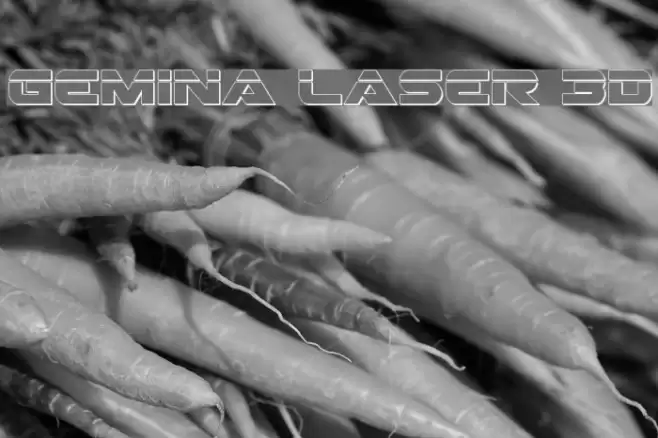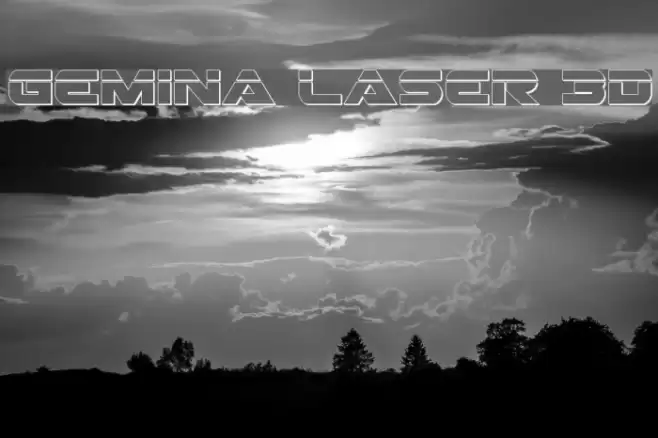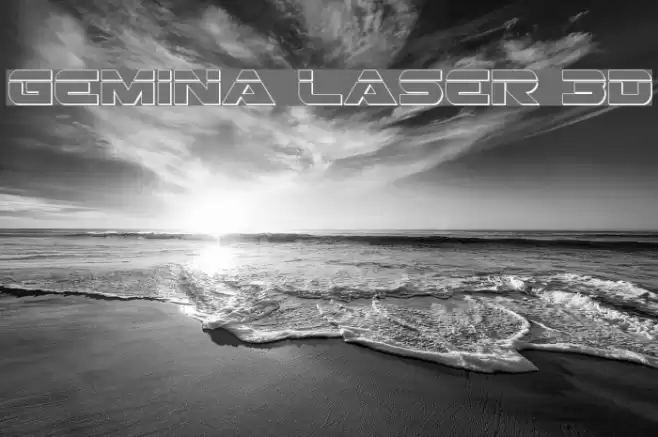
Gemina Laser 3D Font
Gemina Laser 3D Description
This font features a futuristic and geometric design, characterized by its bold, angular lines and three-dimensional appearance. Each character is constructed with a distinct outline that gives it a laser-cut effect, creating a sense of depth and modernity. The uppercase and lowercase letters maintain a consistent style, with sharp edges and a uniform thickness that enhances readability while maintaining a unique aesthetic. The numbers and special characters follow the same design principles, ensuring a cohesive look across all glyphs. This font is ideal for projects that require a modern, tech-inspired feel, such as digital interfaces, gaming titles, or sci-fi themed designs.
A futuristic, geometric font with a 3D laser-cut appearance from Uncategorized fonts.
- Proposed Projects: Ideal for digital interfaces, gaming titles, sci-fi themed designs, and tech-inspired branding.